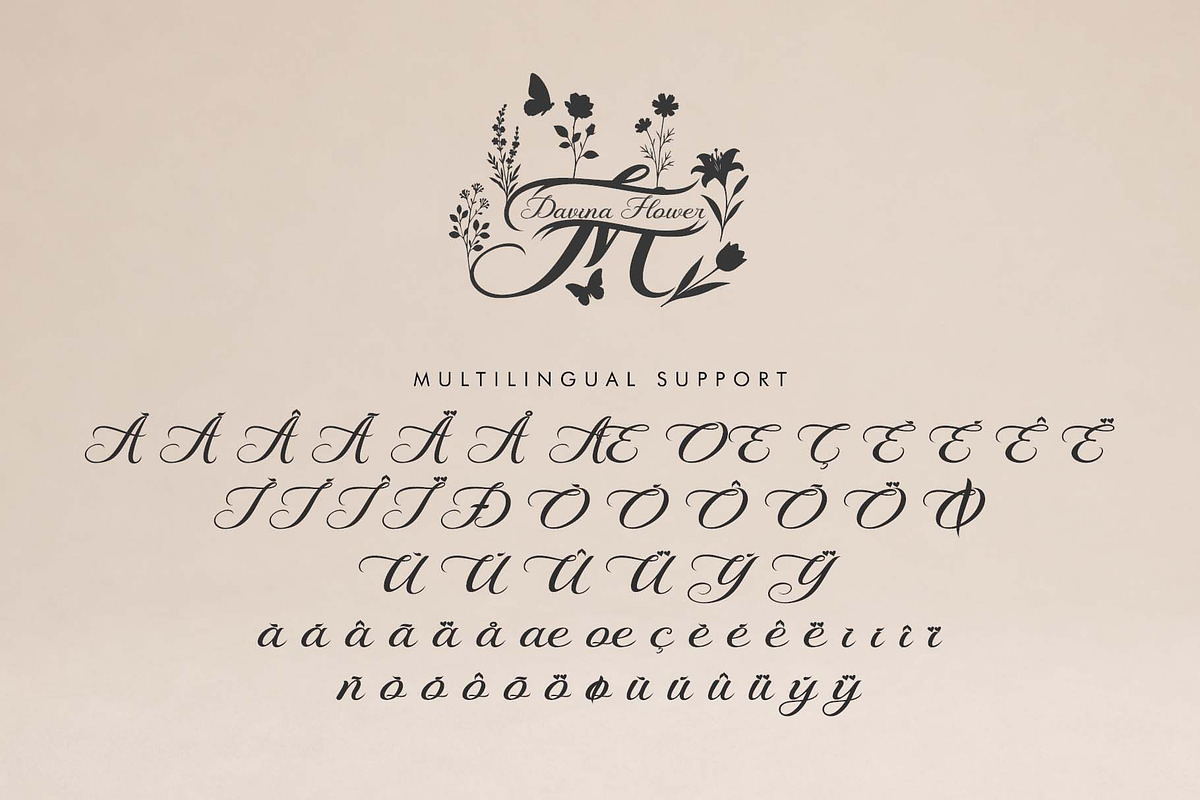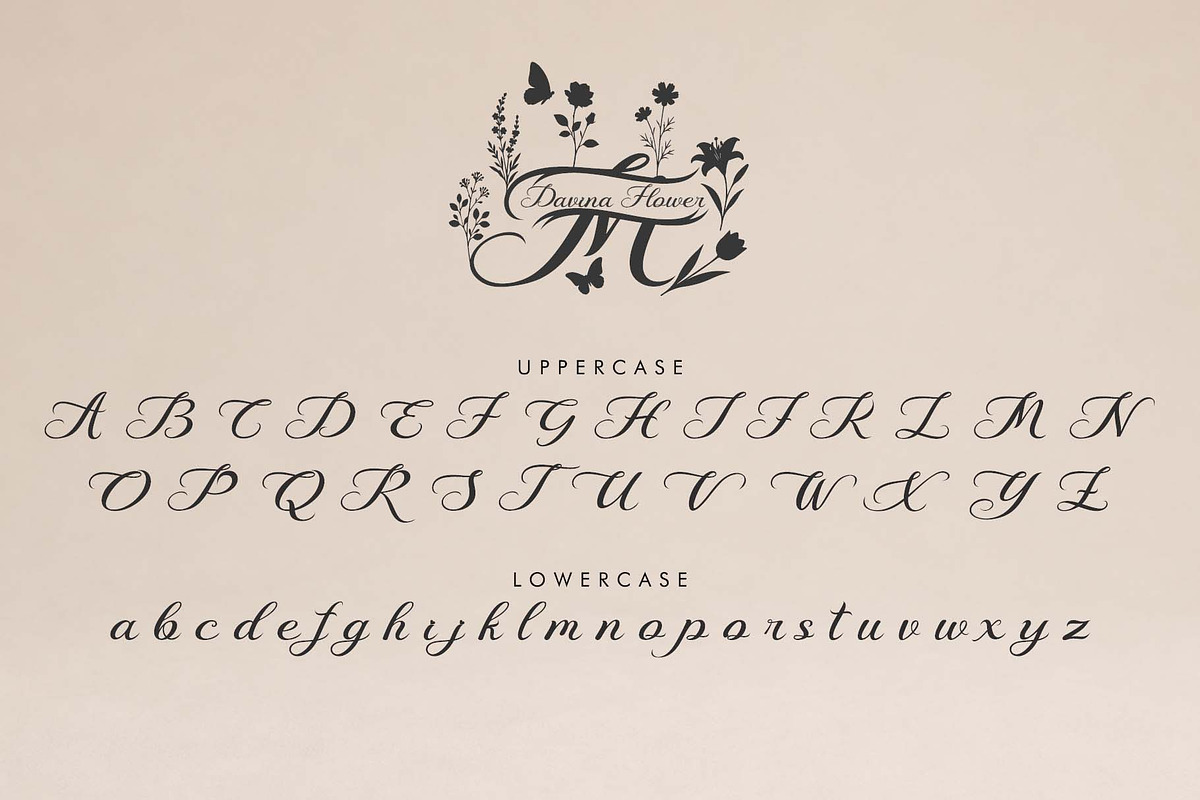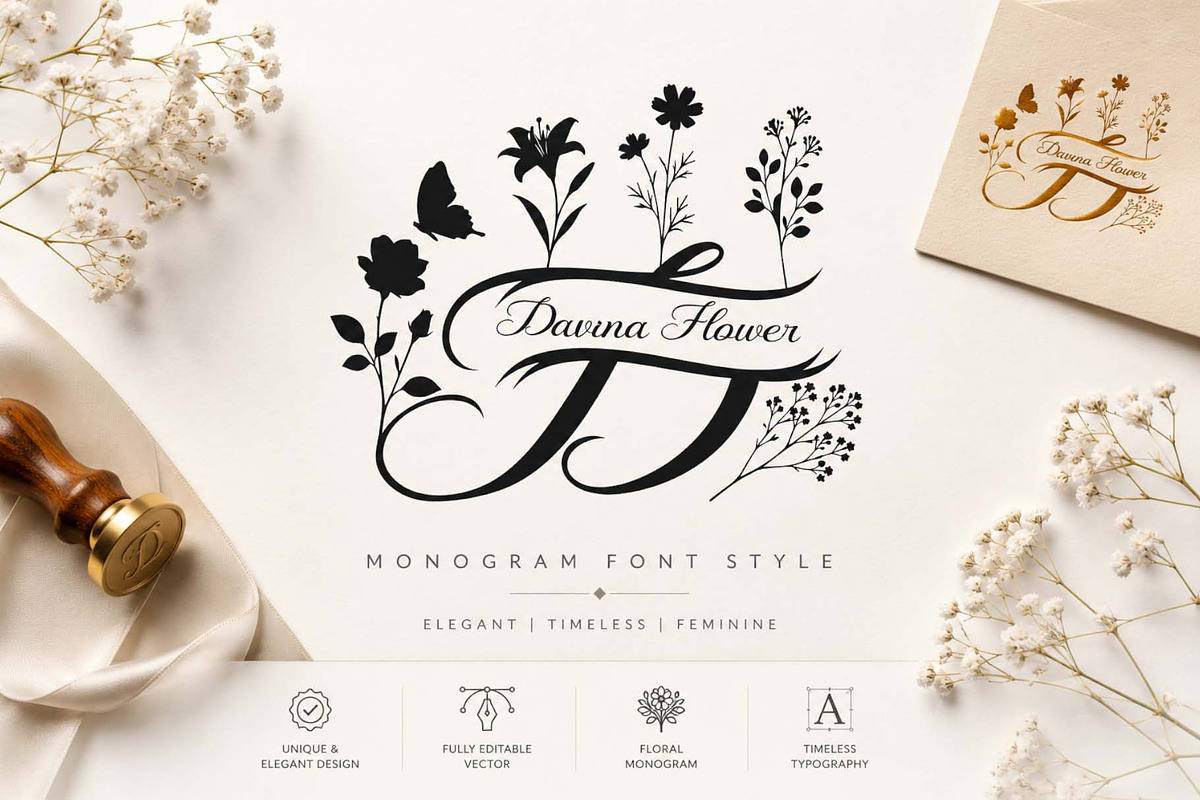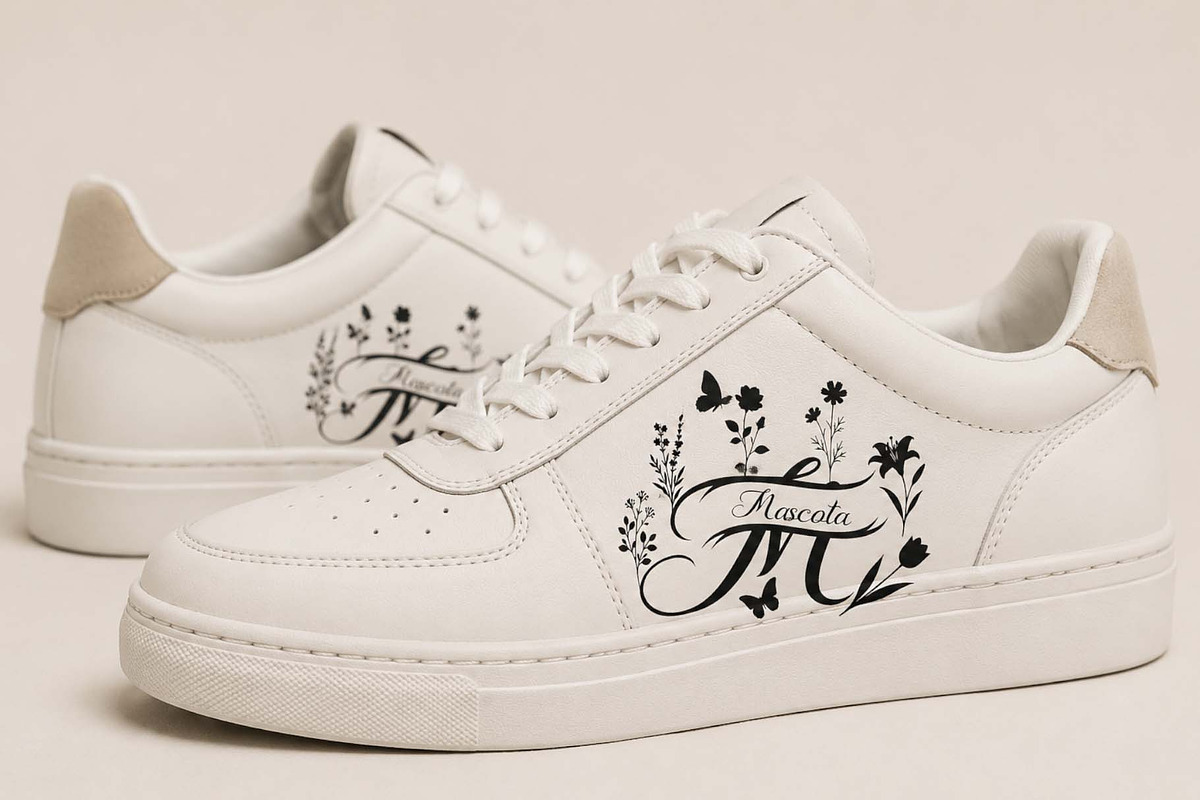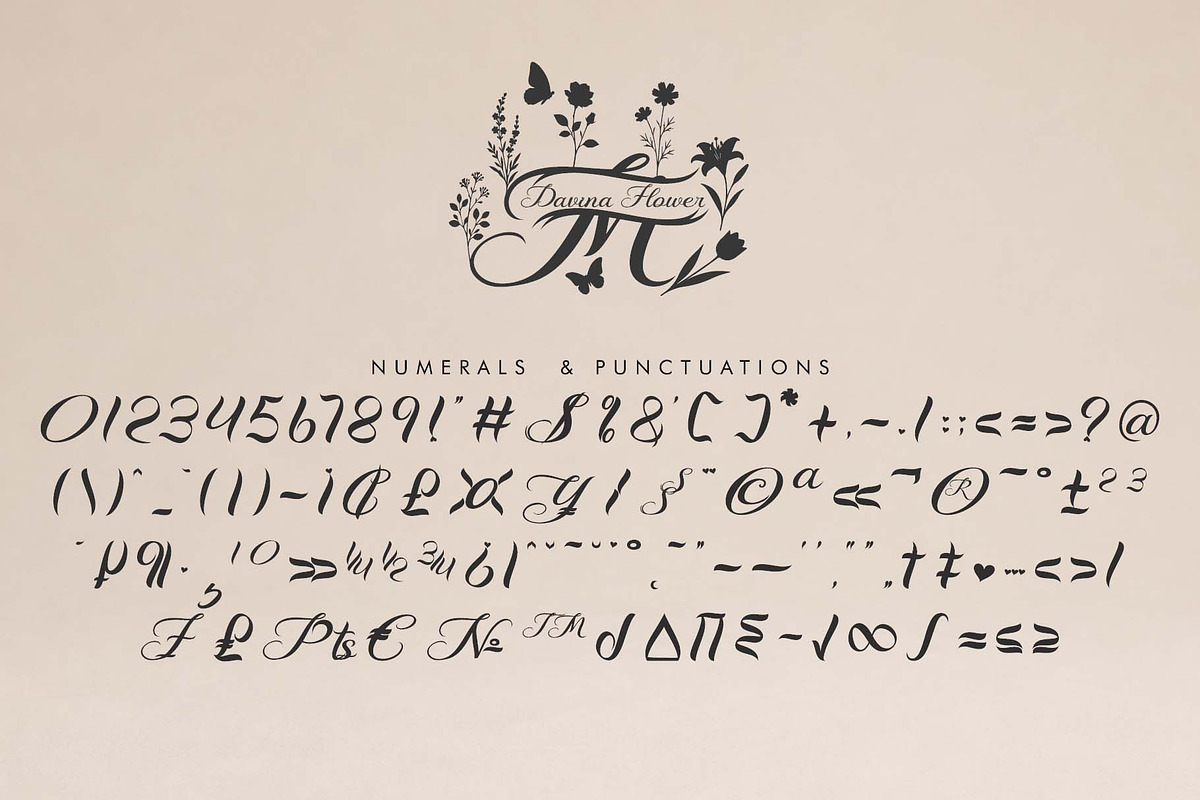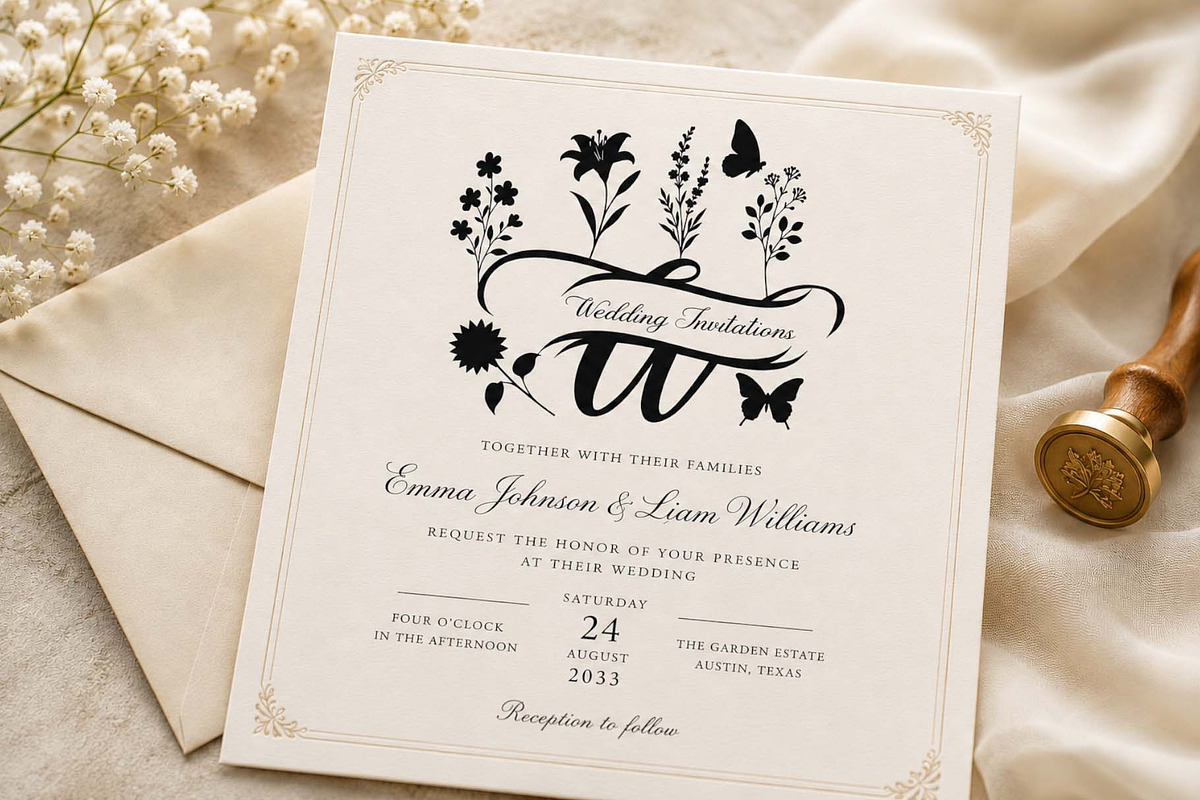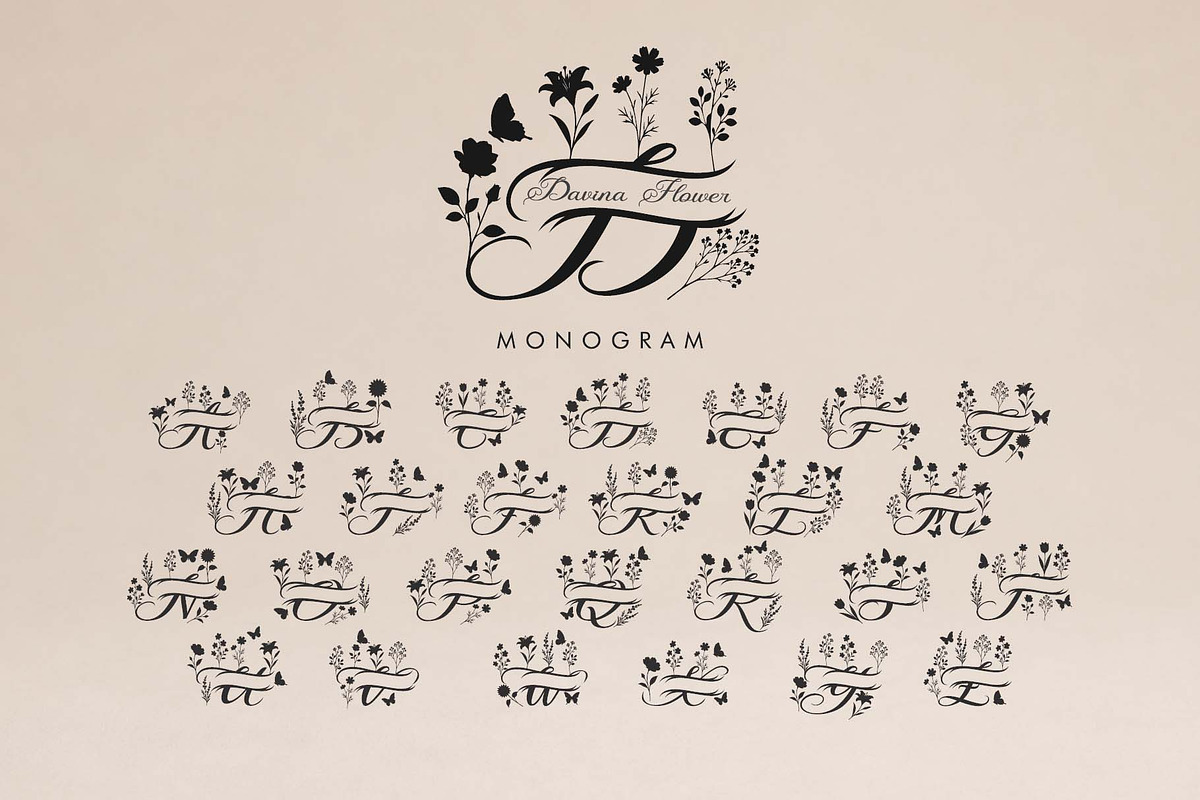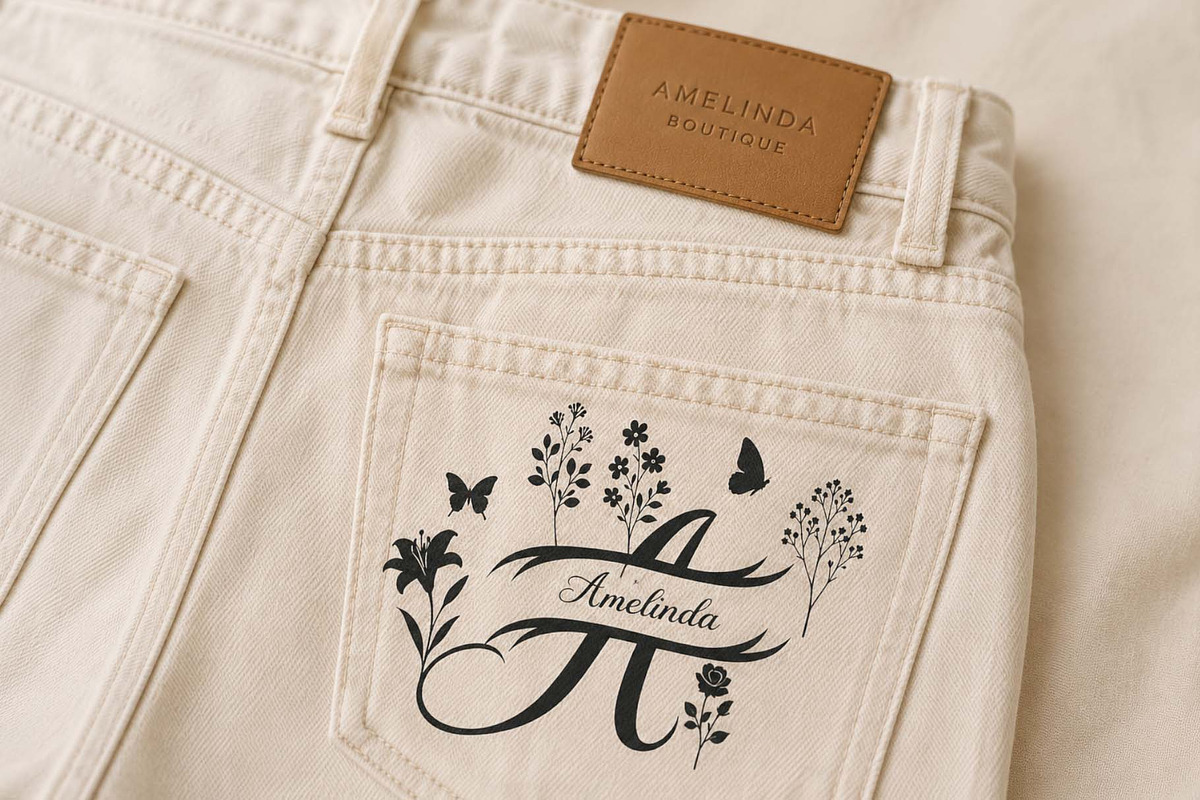
Davina Flower Monogram
Davina Flower Monogram is an elegant and timeless monogram font design, combining graceful handwriting with delicate floral elements. Featuring beautifully crafted initials adorned with flowers, leaves, and botanical accents, this font is perfect for wedding branding, boutique logos, floral businesses, invitations, packaging, and luxury stationery. Its feminine and sophisticated style creates a memorable visual identity while maintaining a refined and professional appearance. Fully editable and versatile, Davina Flower Monogram adds a touch of charm, romance, and exclusivity to any creative project.